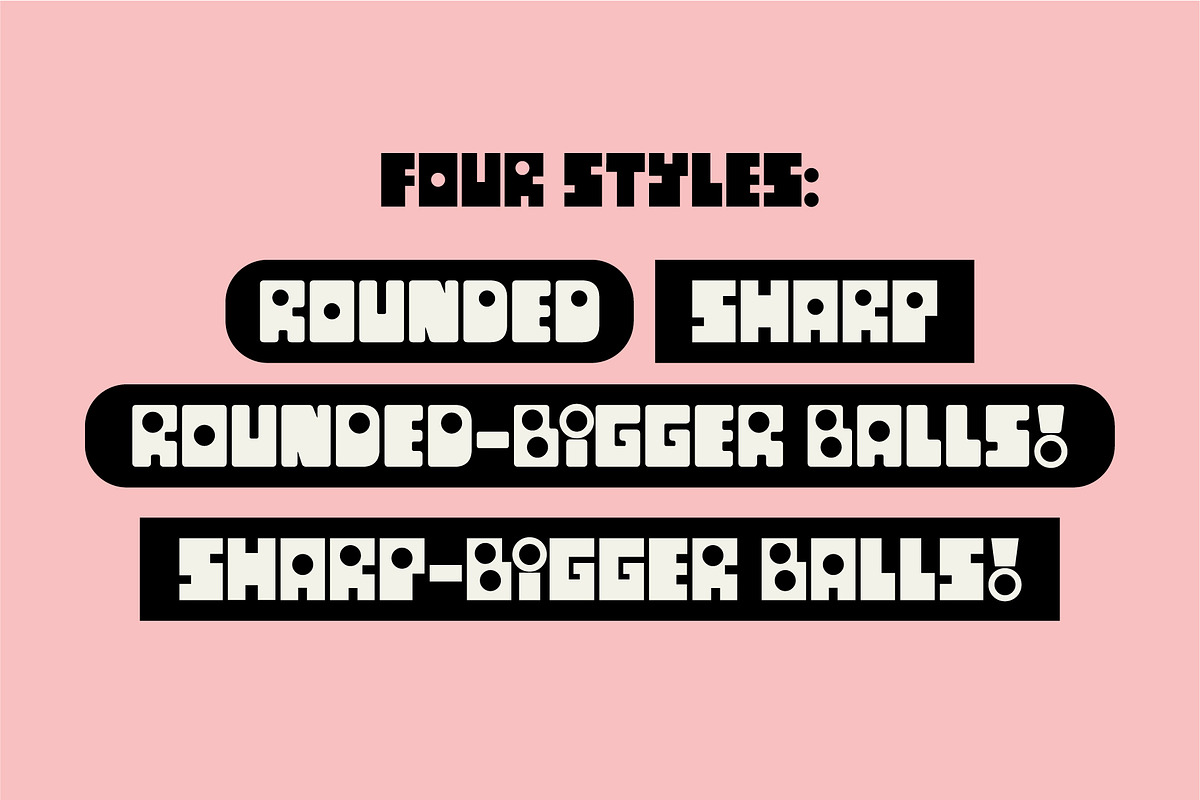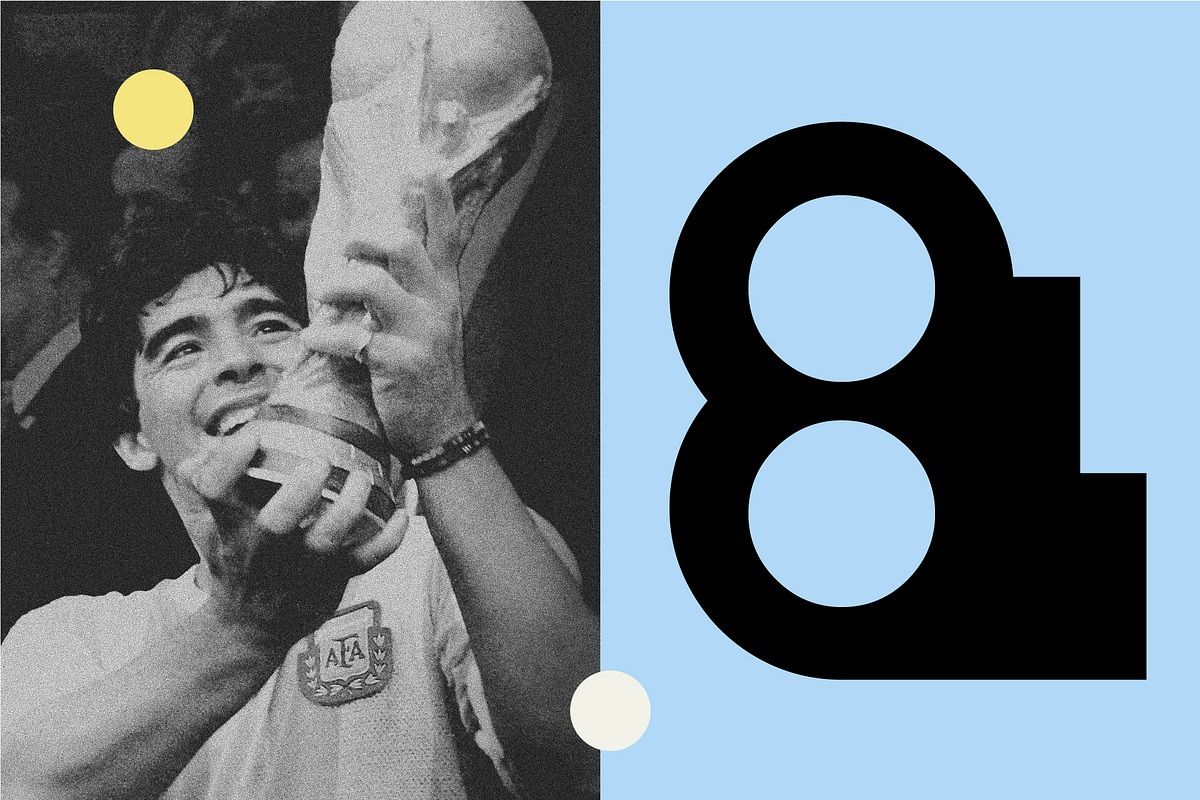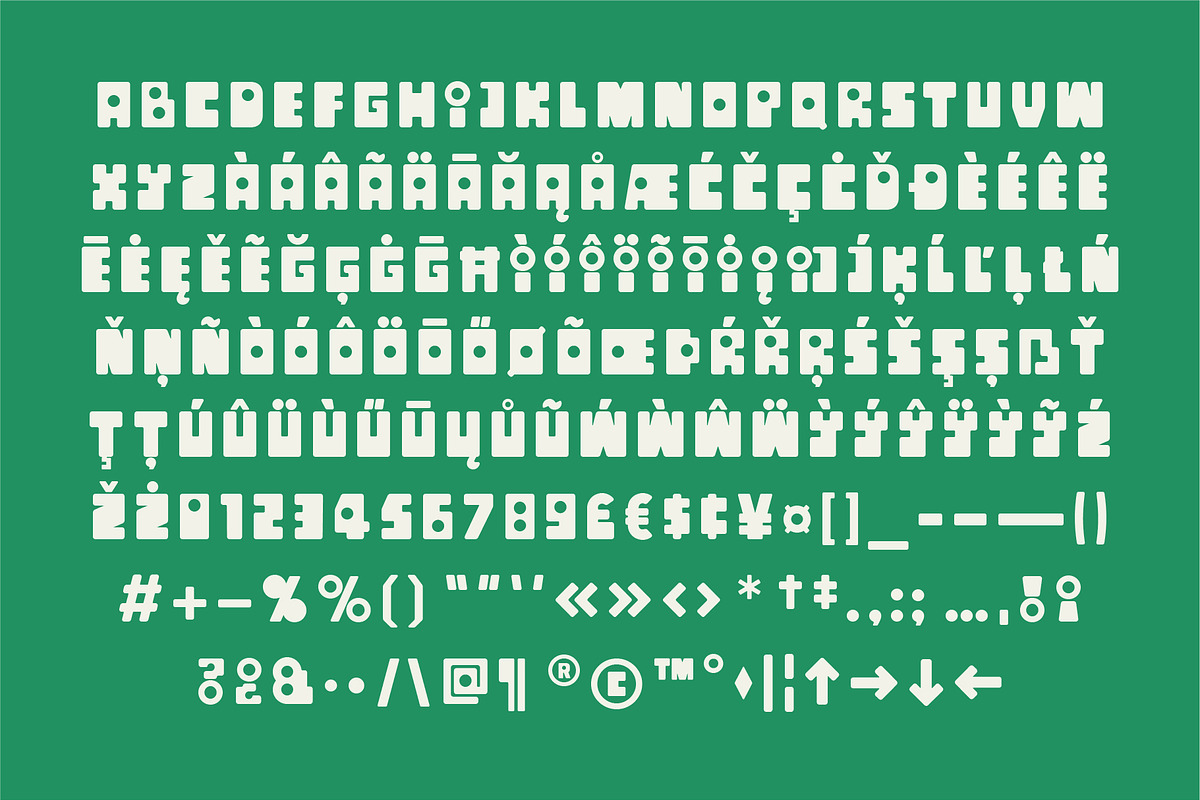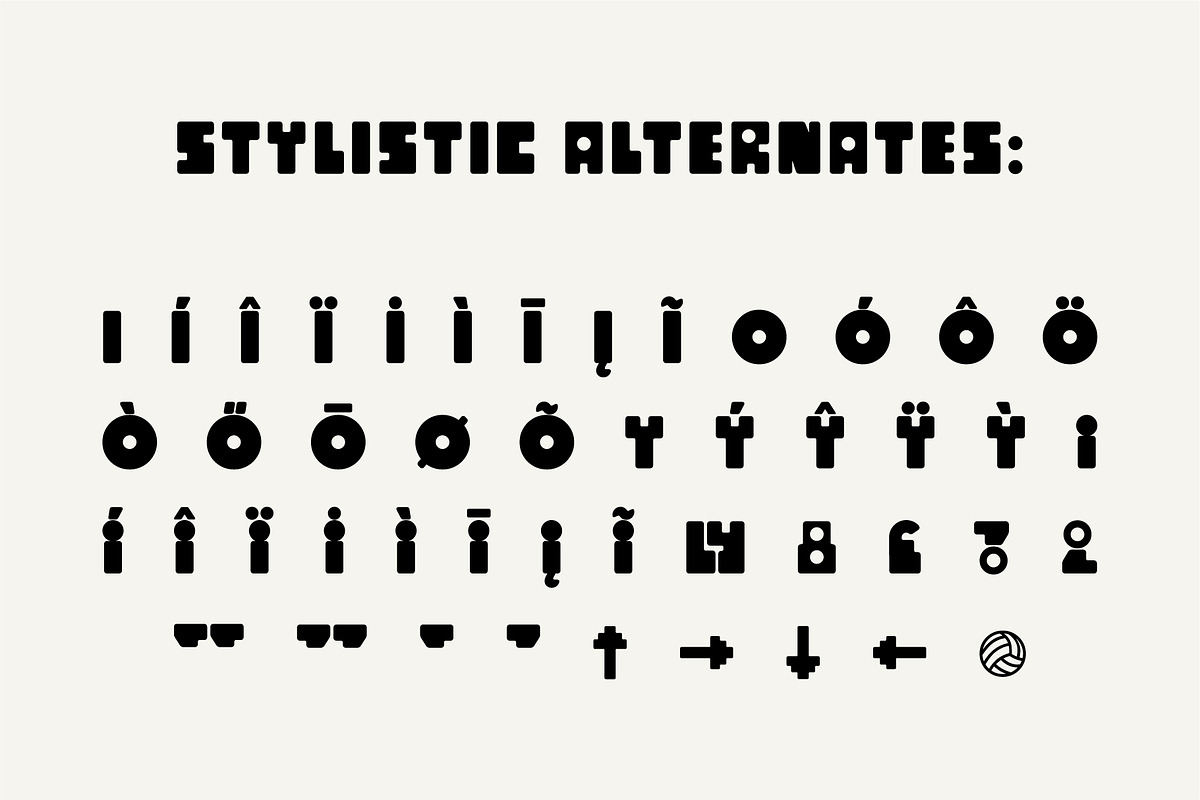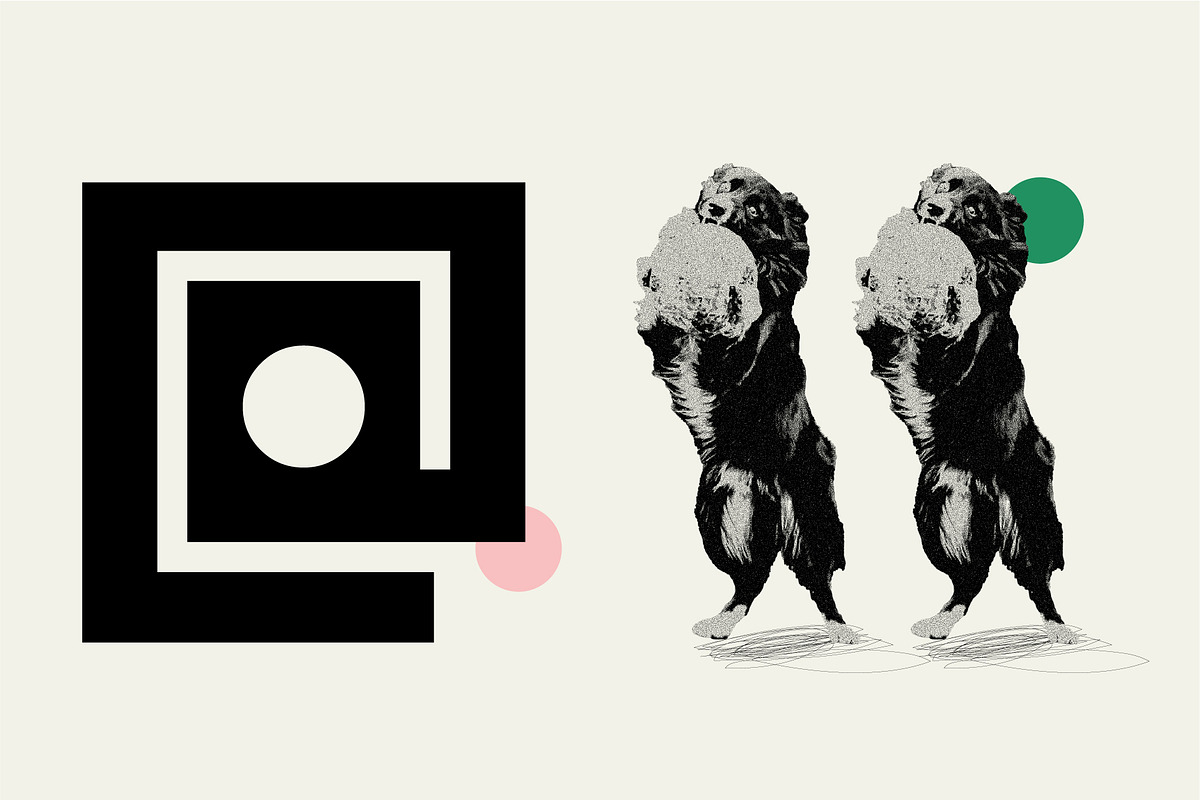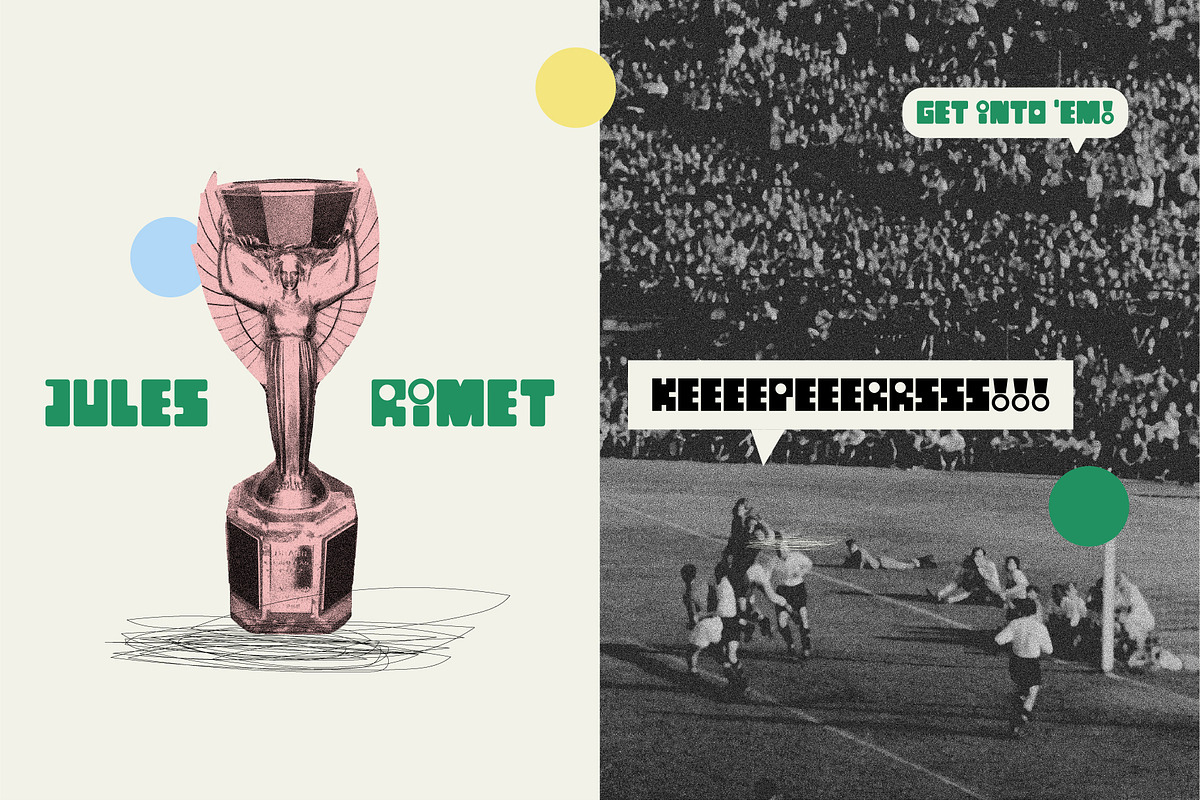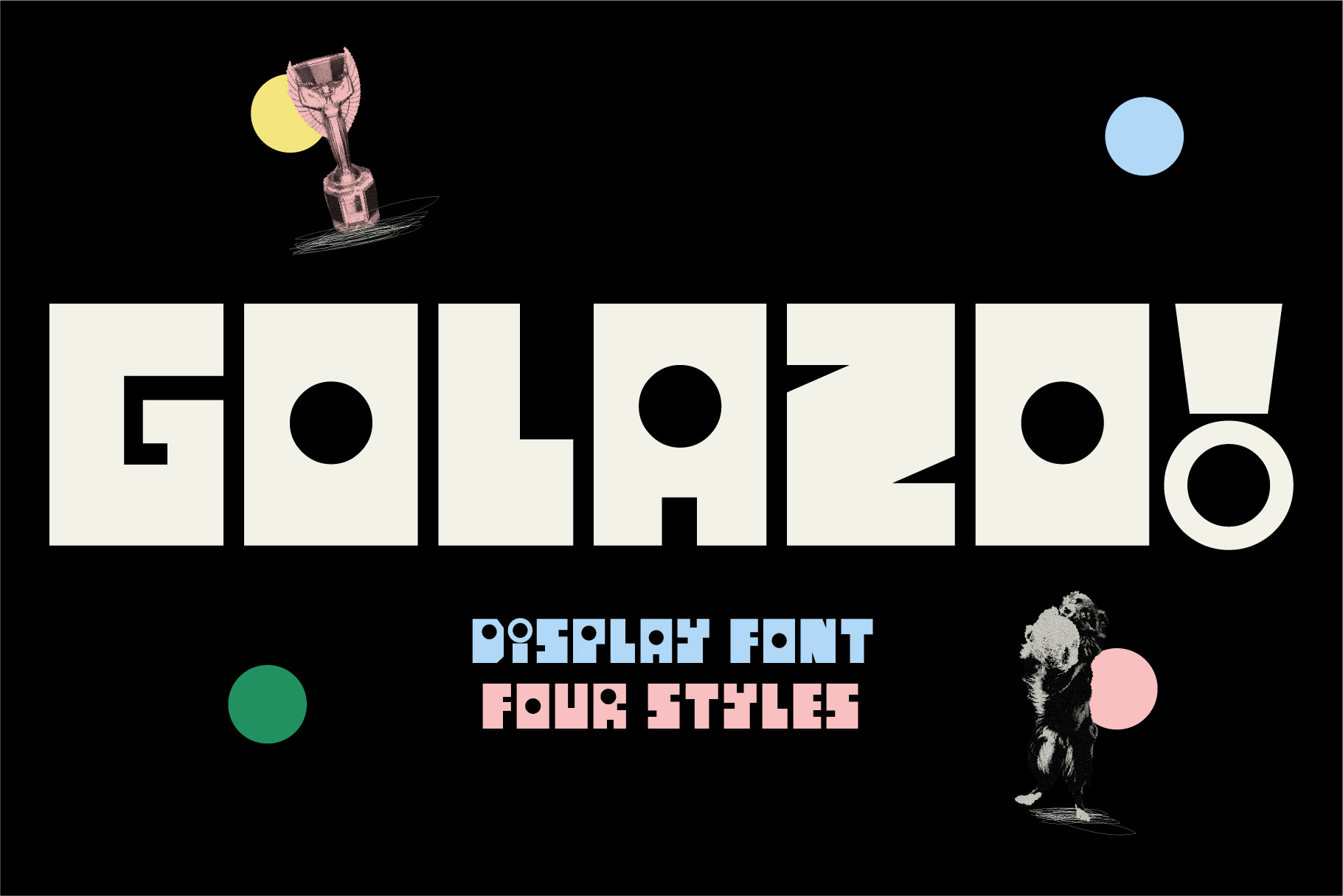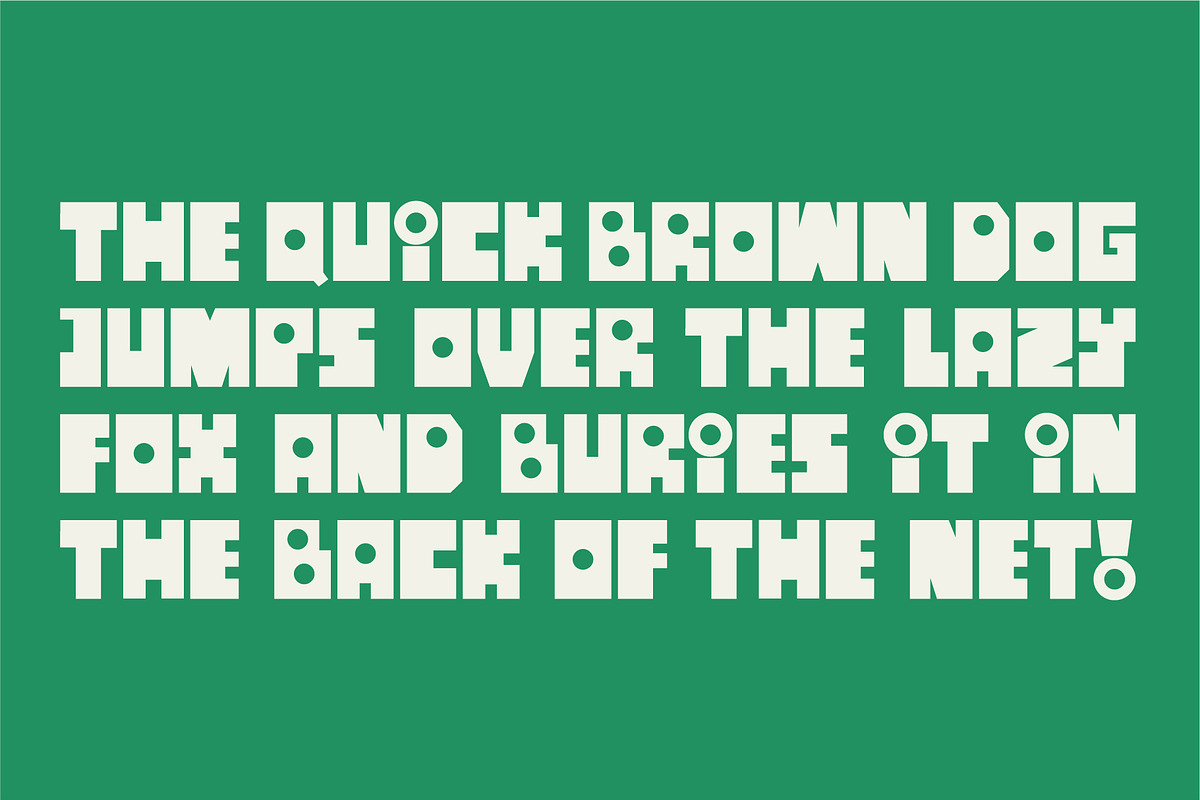
GOLAZO! Retro Display font
GOLAZO! is a bold, retro display font with four different styles.
An ode to a bygone era of retro football paraphernalia, GOLAZO! is rooted in the timeless charm of mid-century match-day programmes and hand-painted signs. GOLAZO!’s round counters embody the ball hitting the back of the net.